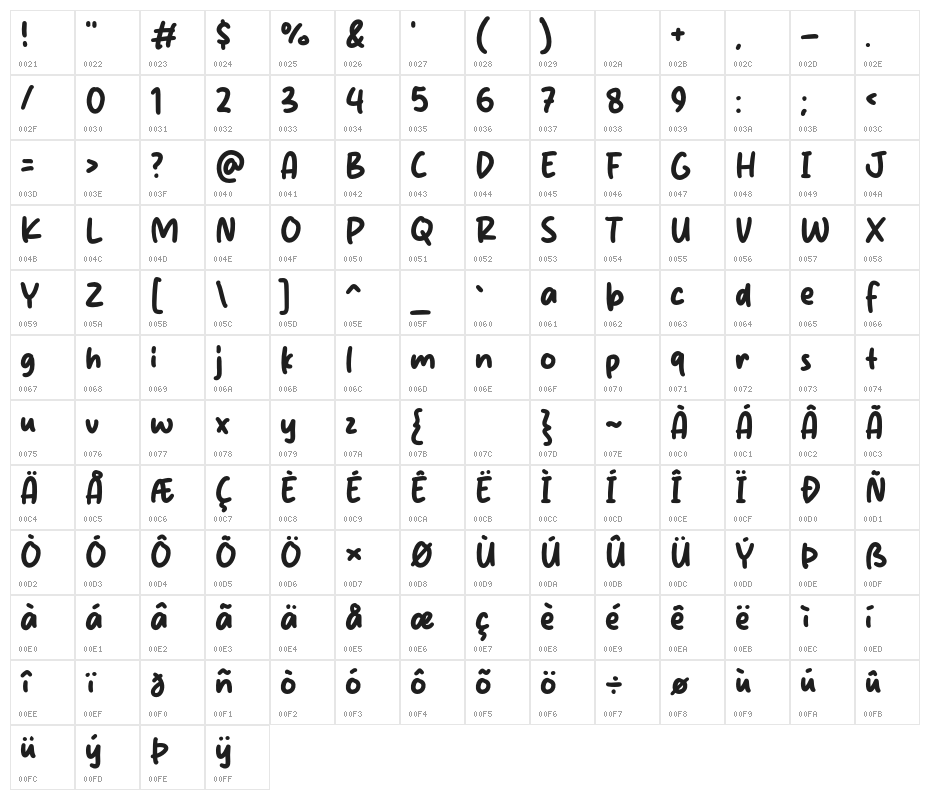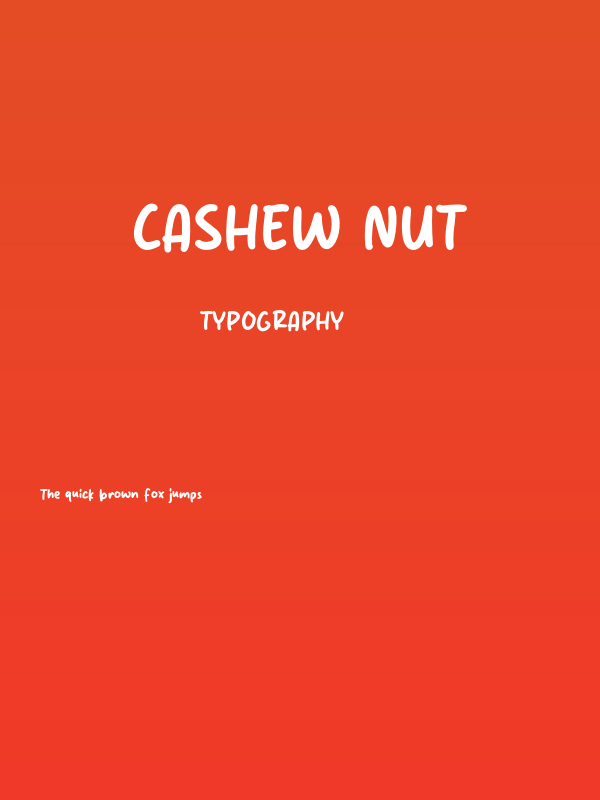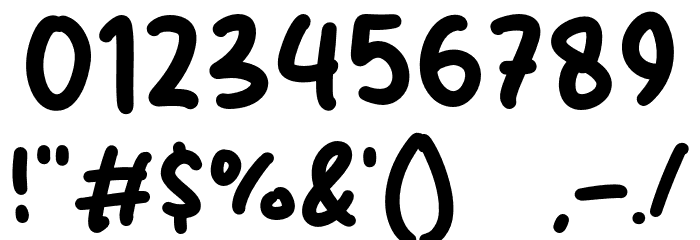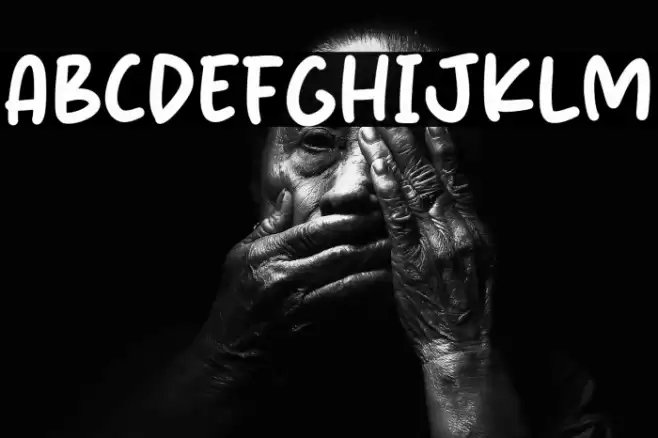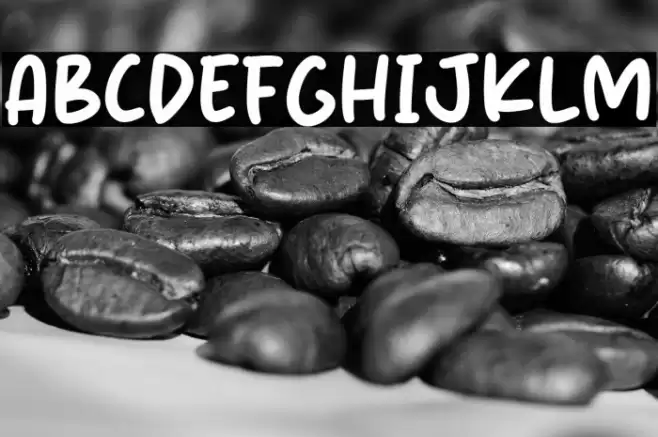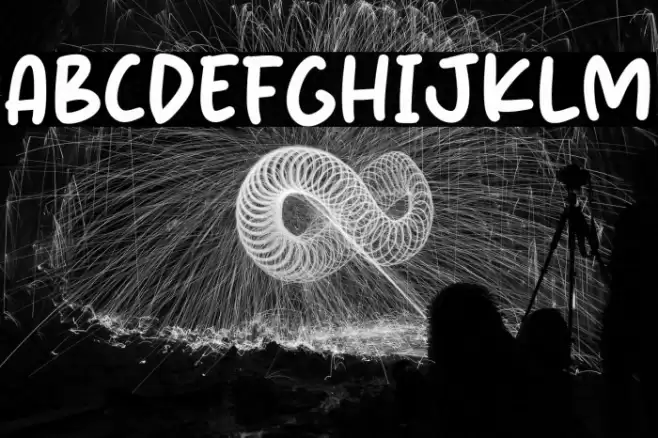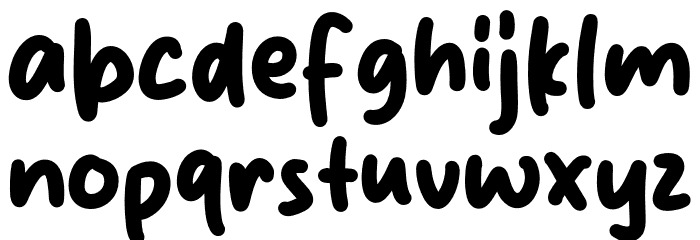
Cashew Nut Font
Cashew Nut Description
This font exudes a playful and casual vibe with its bold, rounded characters that mimic a handwritten style. The letters are slightly irregular, adding a touch of whimsy and personality. The strokes are consistent in thickness, providing a uniform appearance that enhances readability. The overall look is approachable and friendly, making it suitable for projects that aim to convey warmth and informality. The numbers and special characters maintain the same playful aesthetic, ensuring consistency across all text elements.
| Proposed Projects | Ideal for children's books, casual invitations, greeting cards, and playful branding projects. |